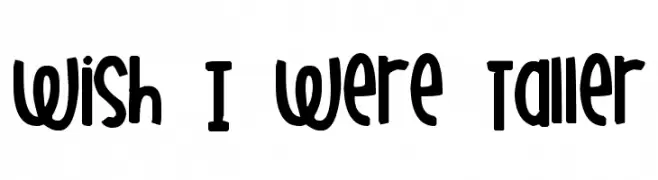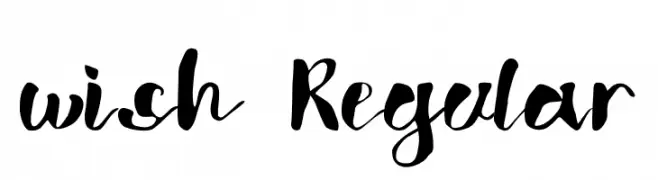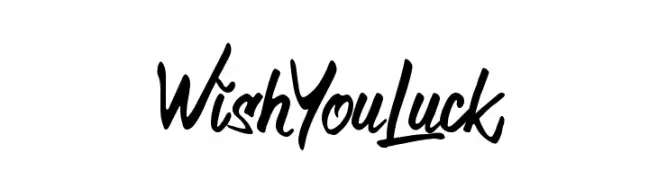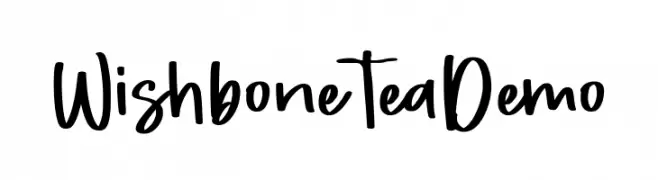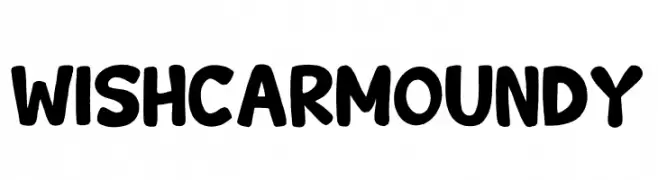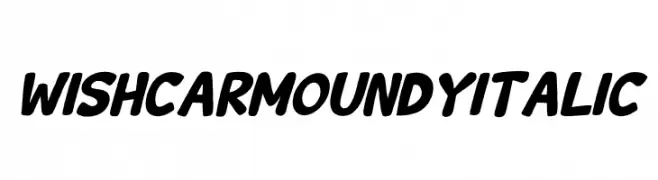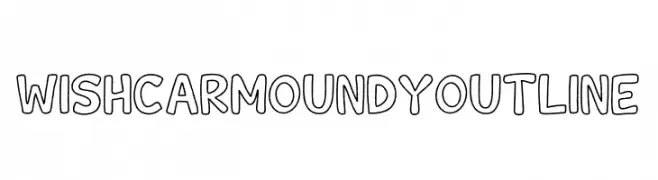
A playful, tall, and narrow font with a whimsical and quirky style.
A bold, handwritten-style font with expressive and fluid characters.
A lively, handwritten font with bold, sweeping strokes and a playful style.
A playful and whimsical font with rounded, hand-drawn letterforms.
A playful, casual handwritten font with smooth, flowing lines and a friendly appearance.
A bold, playful font with a hand-drawn, rounded style.
A bold, italic font with rounded characters and a dynamic, energetic style.
A playful, bold outline font with a hand-drawn, whimsical style.
A playful, italic outline font with bold, rounded characters.